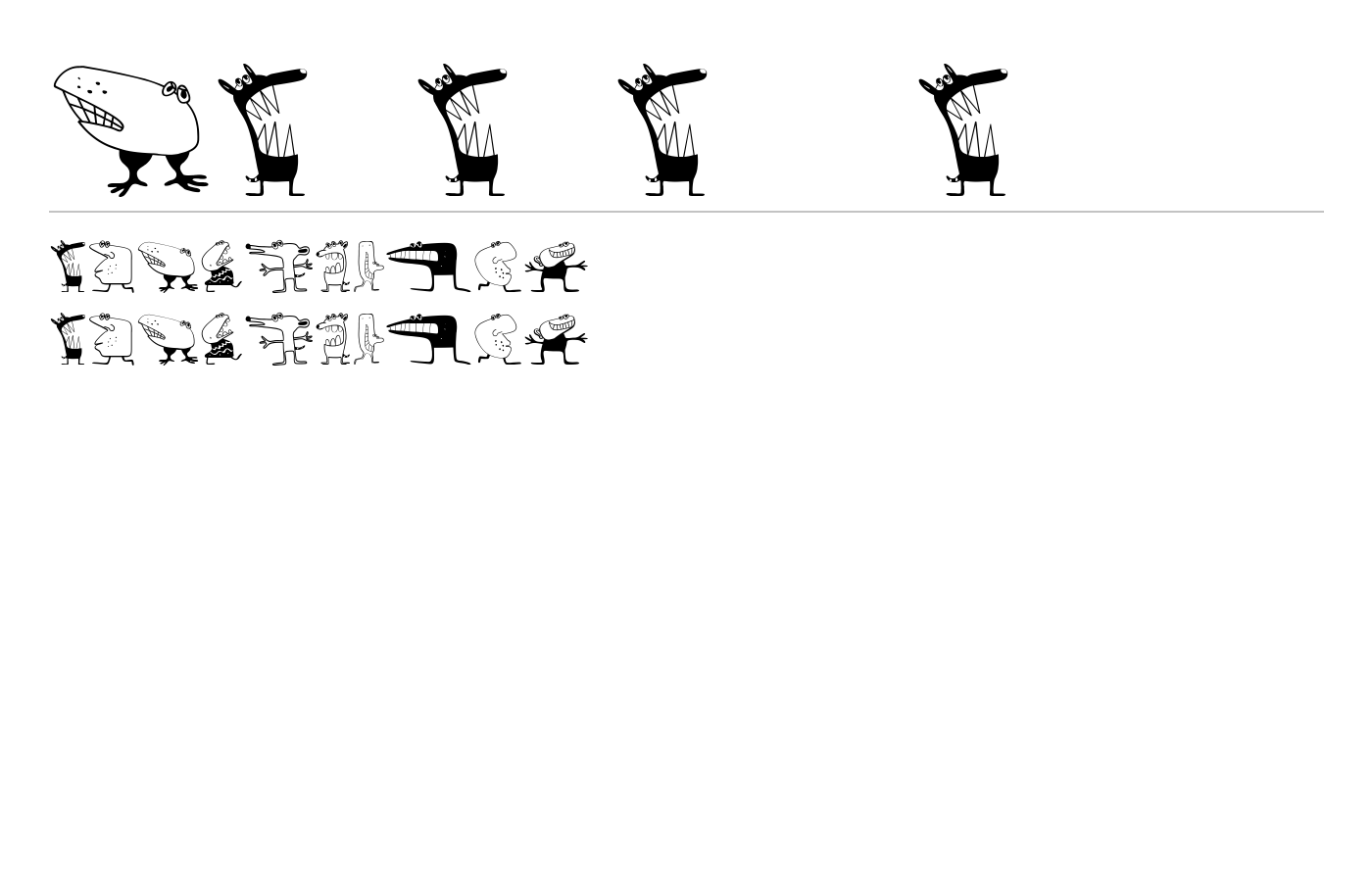
Canavarlar Font is a playful and whimsical display typeface featuring quirky, cartoonish monster characters as letters. Its unique, hand-drawn style adds a fun and imaginative vibe, making it perfect for children’s books, creative projects, and any design seeking a lighthearted, entertaining touch. This font stands out best in large sizes for headlines, posters, or invitations where its distinctive personality can truly shine.
Canavarlar Font
About Canavarlar Font
| Font family | Canavarlar Font |